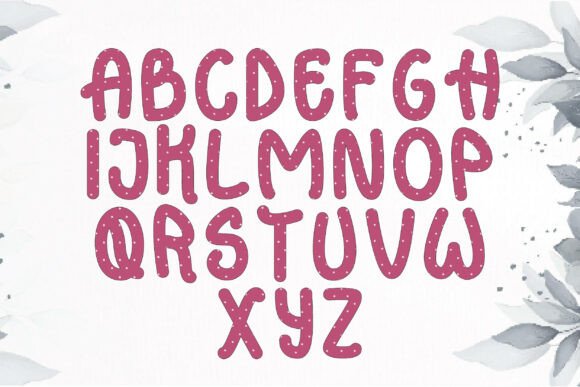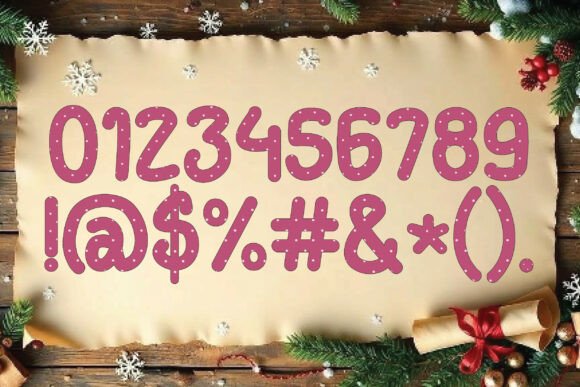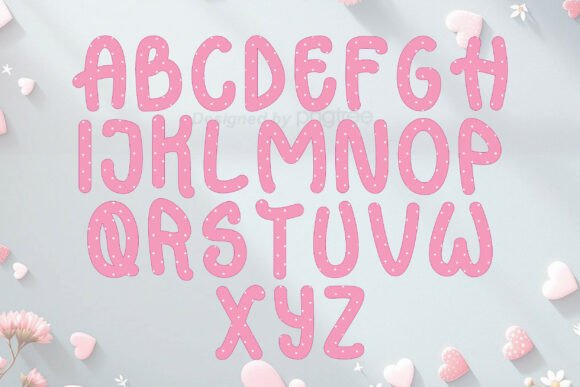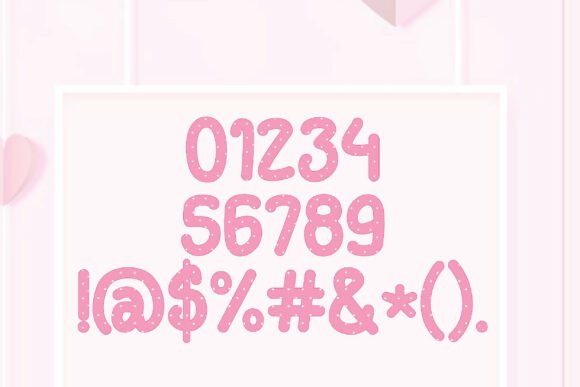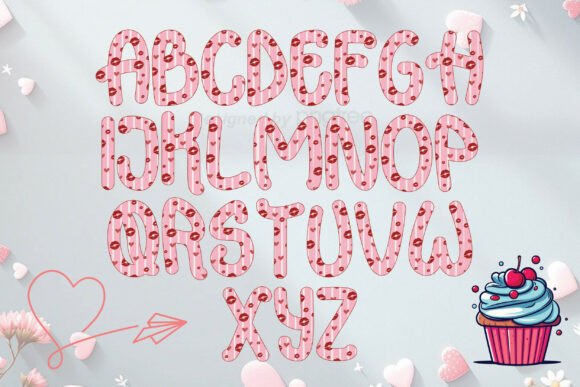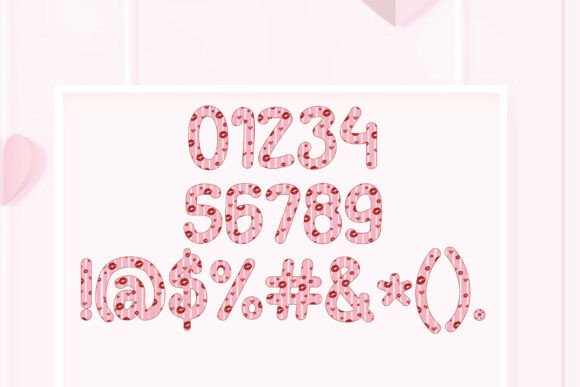
Adding a Touch of Sweetness to Your Designs
Have you ever stumbled upon a font that instantly sparks creativity and makes you want to get designing? That’s exactly what happened to me when I discovered the Berry Valentine’s Bundle Font. This adorable collection of four fonts is a dream come true for anyone looking to add a playful and whimsical touch to their projects.
Whether you’re a seasoned designer or a creative enthusiast, the Berry Valentine’s Bundle Font is an absolute treasure trove of inspiration. With its soft colors and fun patterns, this font bundle is perfect for a wide range of projects, from stickers and planners to t-shirts and party decor. Its versatility and charm make it a valuable addition to any designer’s toolkit, and its compatibility with popular software like Adobe Illustrator and Canva only adds to its appeal.
Berry Valentine’s Bundle Font Key Features
- Unique Characteristics: The font features a unique blend of hand-drawn and digital elements, resulting in a distinctive and eye-catching aesthetic.
Berry Valentine’s Bundle Font Review
As a designer, I’ve had the chance to work with a variety of fonts, but the Berry Valentine’s Bundle Font caught my eye. Here’s my honest review.
- The font is incredibly versatile, with a range of styles and weights that make it perfect for a variety of projects.
- The script fonts are beautifully crafted, with a sense of whimsy and charm that’s perfect for wedding invitations or romantic greeting cards.
- The font is highly customizable, with OpenType features that allow for a range of stylistic variations.
- The font may be a bit too ornate for some projects, which could make it difficult to read at smaller sizes.
- The range of languages supported is limited, which could be a issue for designers working on international projects.
Overall, I’m impressed with the Berry Valentine’s Bundle Font. While it may have some limitations, its versatility and customizability make it a great choice for designers looking to add a touch of romance to their projects.
The Berry Valentine’s Bundle Font is perfect for creating romantic designs for Valentine’s Day. You can use it to create invitations, greeting cards, and other romantic materials.